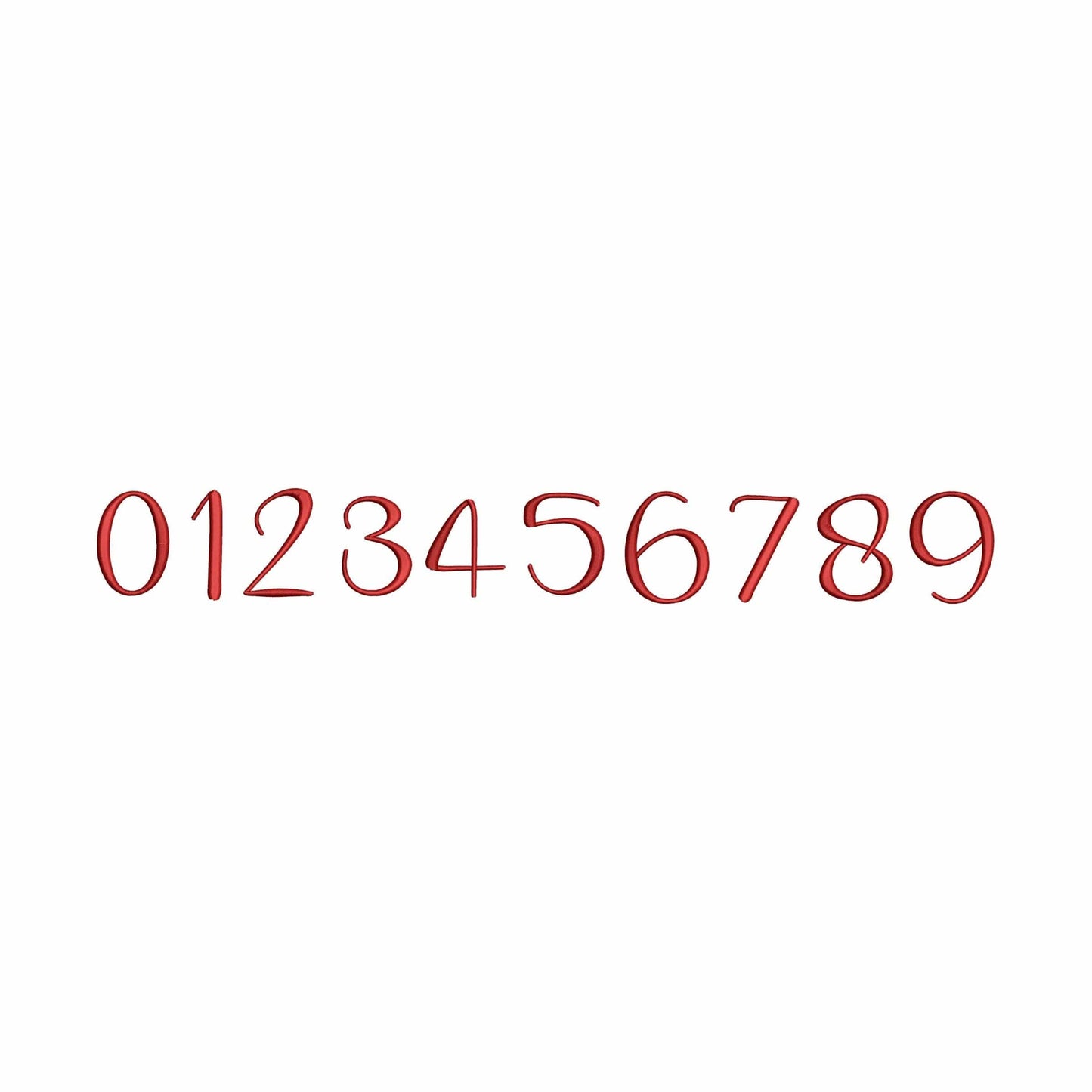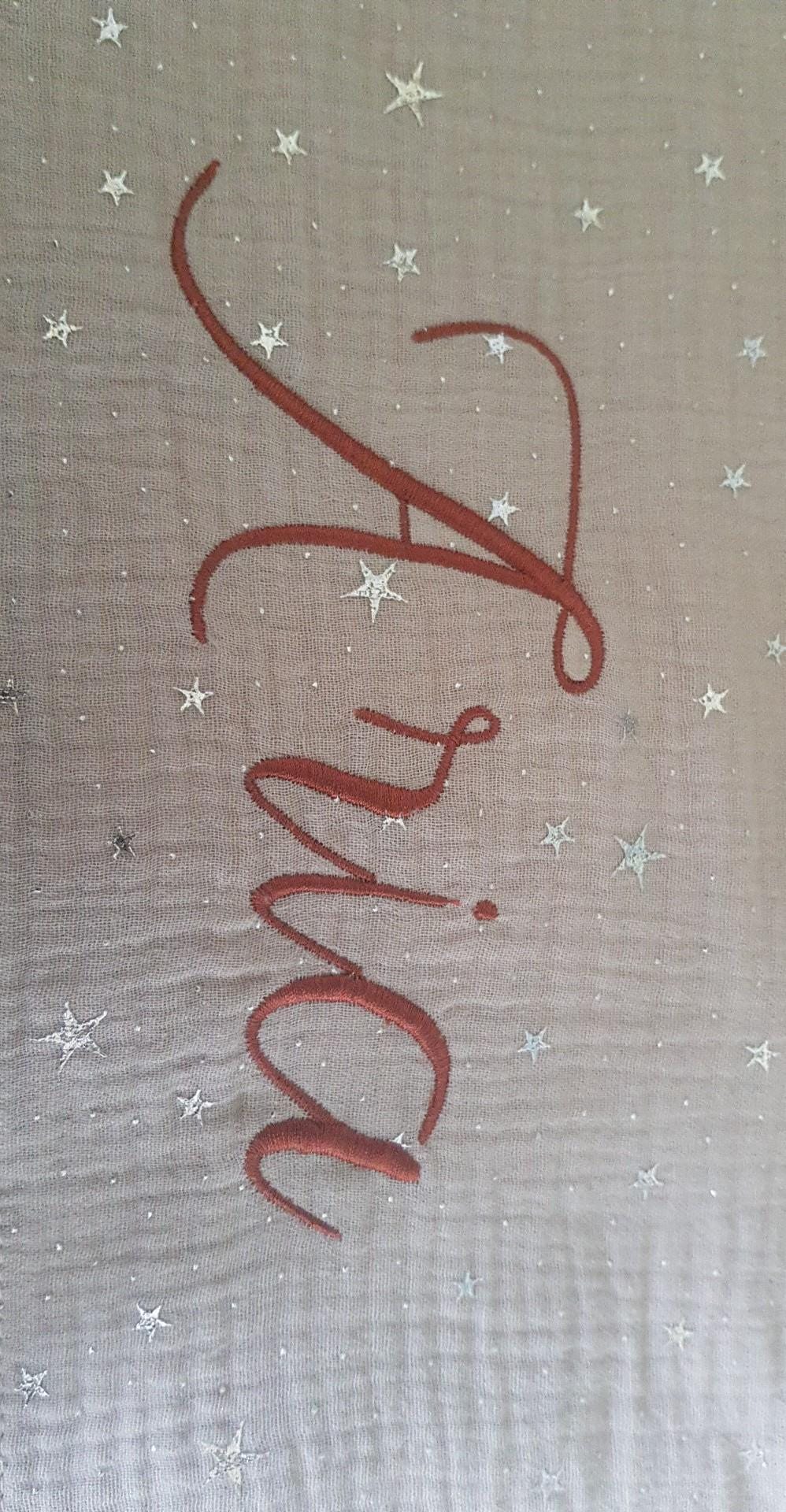
Bright - Embroidery font
• Included: A-Z (uppercase), a-z(lowercase), 0-9 (numbers)
This machine embroidery font works well for monograms, shirts, towels, keepsakes, gifts, and bright feminine embroidery.
A useful digital download for makers who want cursive lettering with a fresh decorative style.